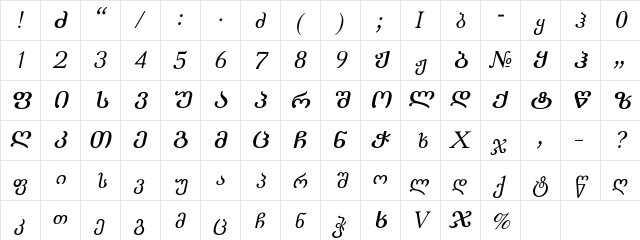
Literaturuly-ITV Italic
Design Context for Literaturuly-ITV Typeface
Literaturuly-ITV is a composed and adaptable typeface that performs quietly and consistently across a wide range of design contexts. The slanted form adds forward momentum and visual energy.